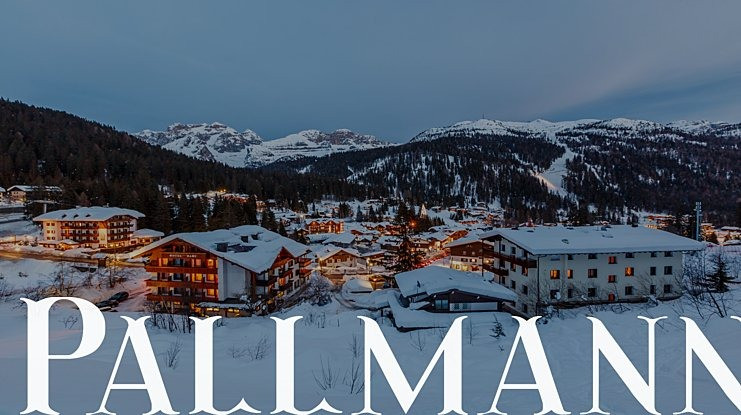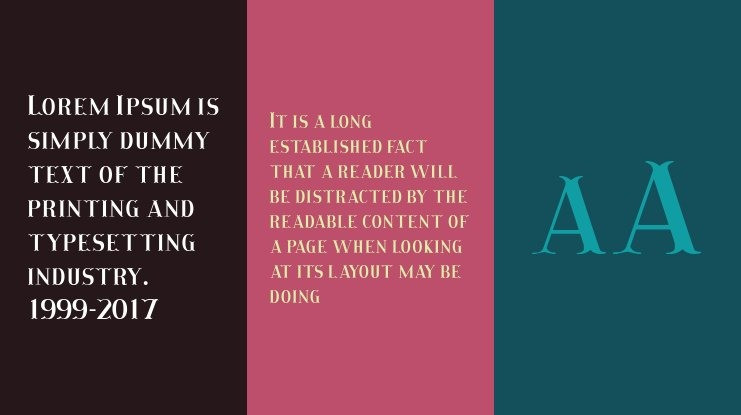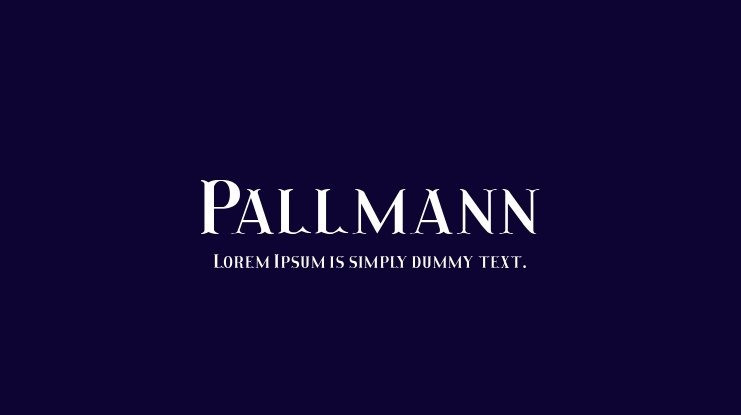
Pallmann Display Font, This fancy, decorative font contains 600 characters. It supports all western European languages and also contains the entire Greek and Cyrillic alphabets. Enjoy!
Pallmann Font
| Designer Name: | Lee Pallmann |
| Classification: | Decorative Fonts, Display Fonts, Retro / Vintage Fonts |
Pallmann